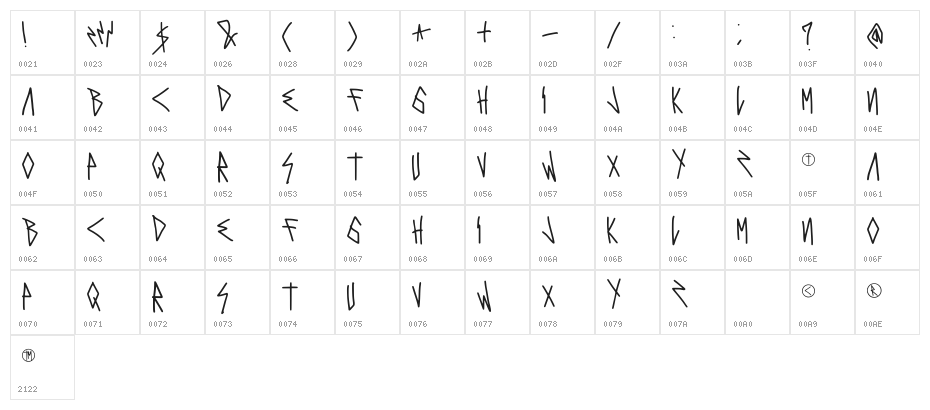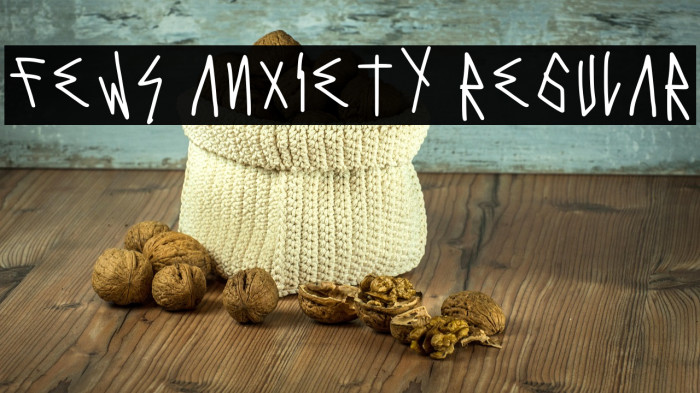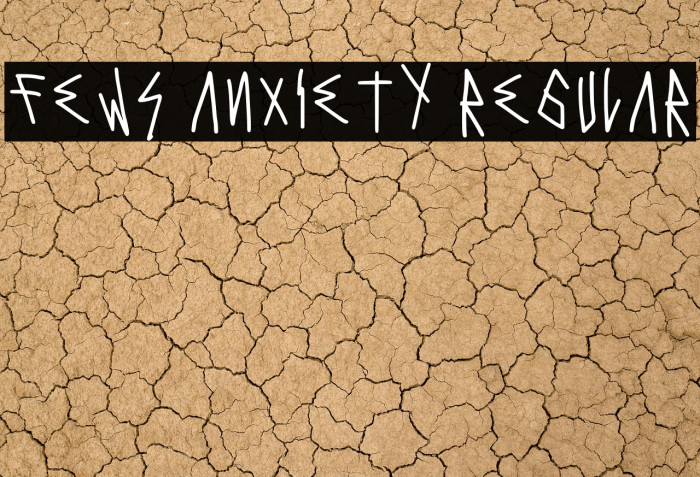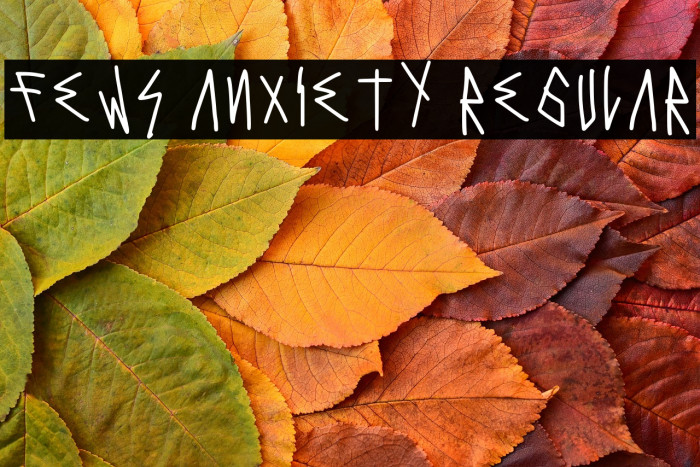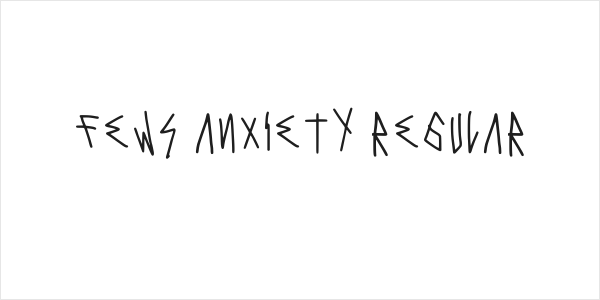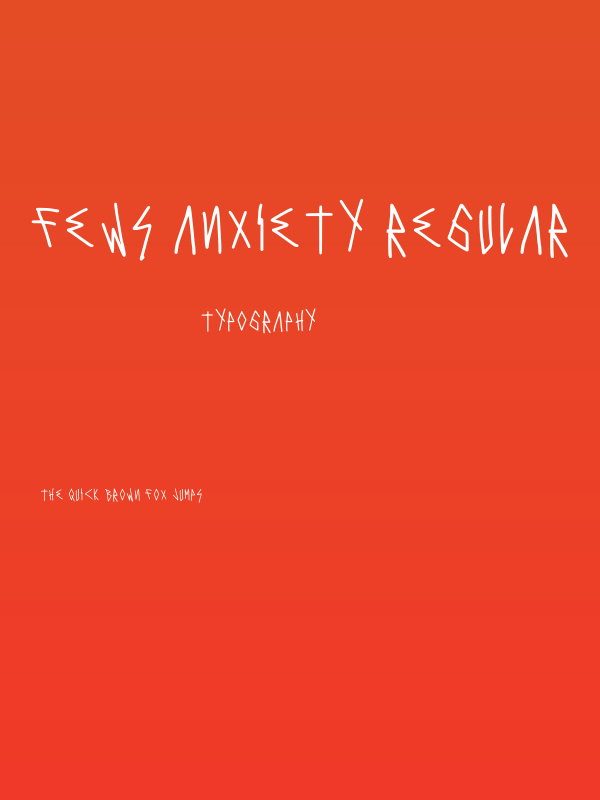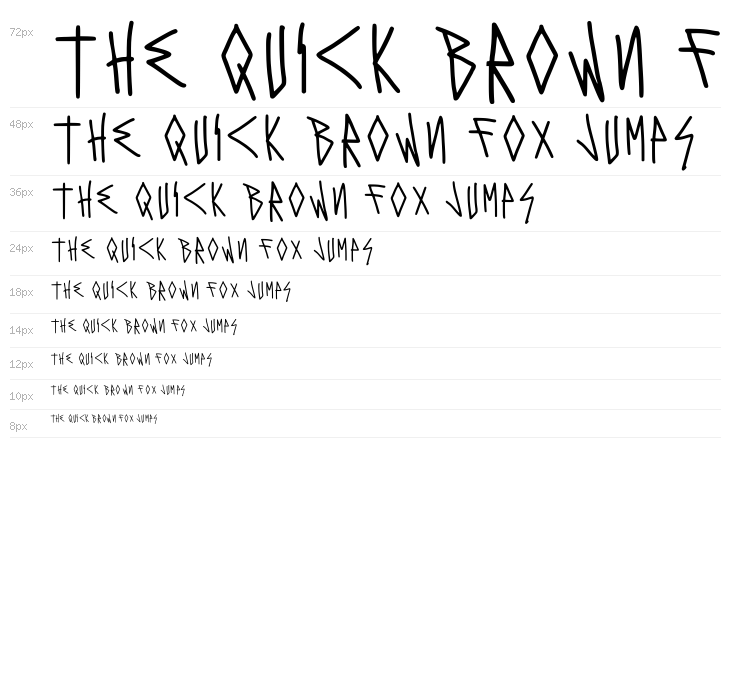
Fews Anxiety Regular Font
Fews Anxiety Regular Description
This font features a unique and edgy design with angular, sharp lines that give it a distinct, almost futuristic appearance. The characters are formed with irregular strokes, creating a sense of movement and energy. The uppercase and lowercase letters maintain a consistent style, with a slightly chaotic yet structured form. Numbers and special characters follow the same aesthetic, ensuring uniformity across all elements. The font's unconventional style makes it stand out, suitable for projects that require a bold and modern touch.
| Proposed Projects | Ideal for album covers, posters, video game graphics, and any project needing a modern, edgy look. |